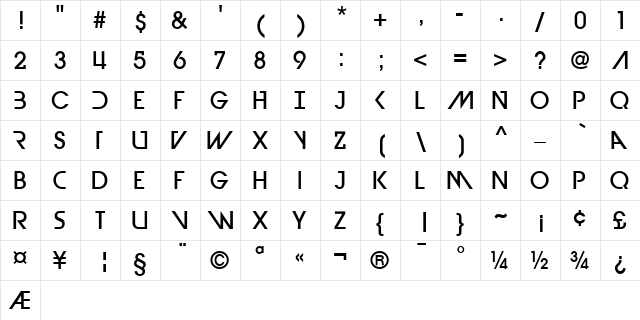
Devil Breeze Medium
| Foundry | Wesley Pastrana Rosado(Weslo GFx) |
| Designer | Wesley Pastrana |
Design Context for Devil Breeze Typeface
Devil Breeze takes a measured approach to typography — its balanced proportions and neutral character make it a reliable workhorse for both digital and print work.